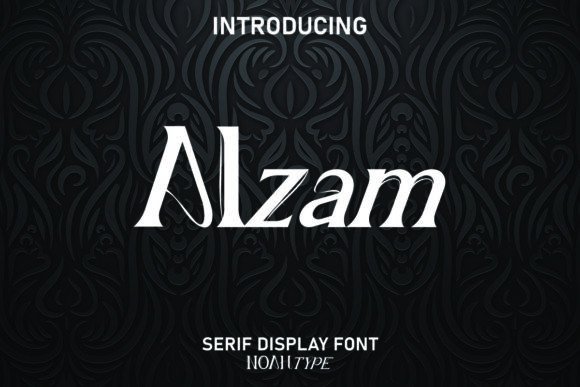
Introducing Alzam Font: A Timeless Serif Display Font Inspired by Ancient Rome
Are you a designer or crafter looking for a font that exudes classic elegance and sophistication? Look no further than Alzam Font, a unique serif display font inspired by the ancient Roman era. With its timeless style and exceptional readability, Alzam Font is perfect for a wide range of projects, from book covers to branding logos, brochures, business cards, invitations, posters, signage, and more.
A Font that Stands the Test of Time
Alzam Font is a masterful blend of classic and modern design elements. Its serif style is reminiscent of ancient Roman typography, evoking a sense of history and tradition. Yet, despite its vintage inspiration, Alzam Font remains remarkably easy to read, making it an excellent choice for both print and digital applications.
Key Features of Alzam Font
- Unique Serif Style: Alzam Font boasts a distinctive serif style that sets it apart from other display fonts.
- Classic Inspiration: Inspired by ancient Roman typography, Alzam Font brings a touch of timeless elegance to any project.
- Exceptional Readability: Despite its ornate style, Alzam Font remains surprisingly easy to read, making it perfect for a wide range of applications.
- Versatility: Alzam Font is suitable for various projects, including book covers, branding logos, brochures, business cards, invitations, posters, signage, and more.
Use Alzam Font for Your Next Project
Whether you’re a seasoned designer or a crafty DIY enthusiast, Alzam Font is an excellent addition to your typography toolkit. Here are some ideas for using Alzam Font in your next project:
Book Covers
Create a stunning book cover that stands out on bookstore shelves with Alzam Font. Its classic style and exceptional readability make it perfect for titles, subtitles, and author names.
Branding Logos
Establish a strong brand identity with Alzam Font. Its unique serif style and timeless inspiration make it an excellent choice for logos that require a touch of sophistication and elegance.
Brochures and Business Cards
Elevate your marketing materials with Alzam Font. Its exceptional readability and classic style make it perfect for brochures, business cards, and other print collateral.
Invitations and Posters
Create eye-catching invitations and posters with Alzam Font. Its unique serif style and timeless inspiration make it perfect for events, promotions, and announcements.
Signage
Make a lasting impression with Alzam Font on signage. Its exceptional readability and classic style make it perfect for storefronts, billboards, and other outdoor displays.
Alzam Font is a versatile and elegant serif display font that brings a touch of ancient Rome to modern design. With its unique style, exceptional readability, and timeless inspiration, Alzam Font is perfect for designers and crafters looking to add a touch of sophistication to their projects. Try Alzam Font today and discover the perfect typography solution for your next creative endeavor.